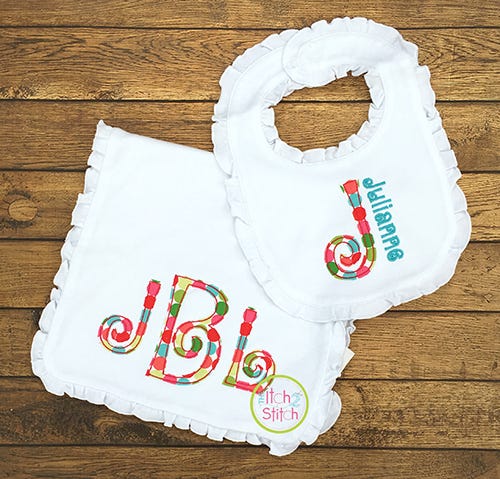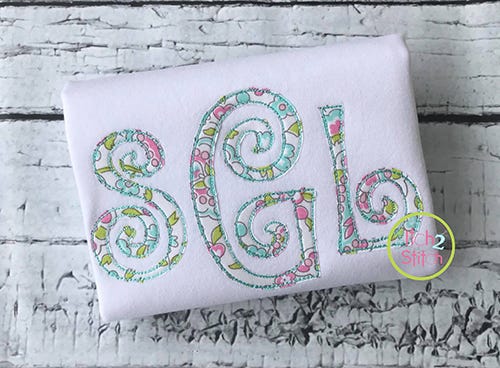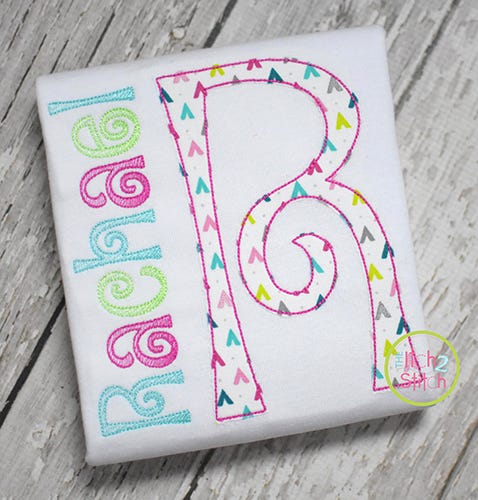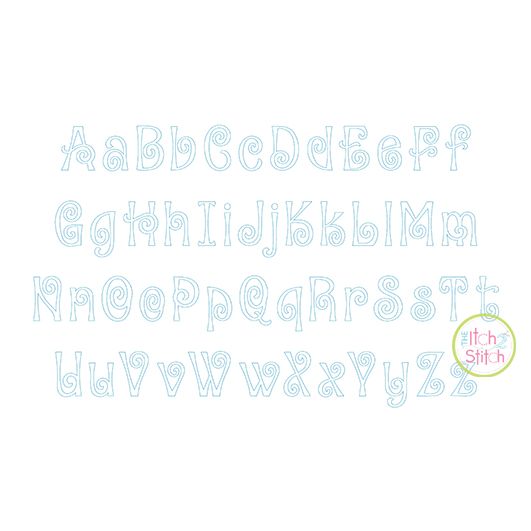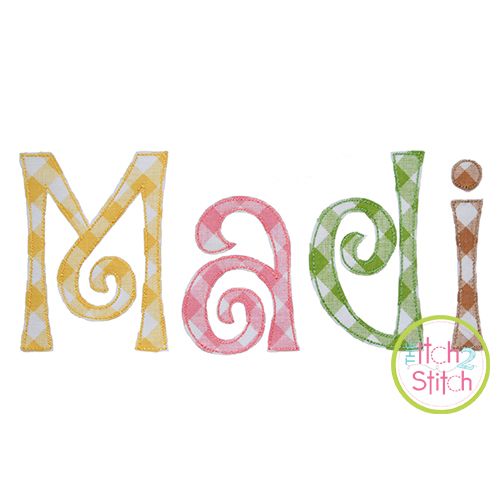
Amorette Bean Stitch Applique Embroidery Font
This is a bean stitch applique set. Each letter has placement and tack down stitches, then is finished off with a triple bean stitch. When trimming the letters, leaving a quarter-inch seam allowance allows for fraying and a raggy look. Trimming close to the line will give a more polished look (depending on your material you may wish to use a fusible product like Heat N Bond Lite to prevent fraying).